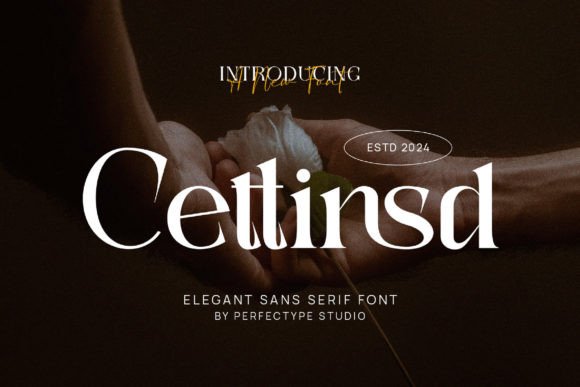
Cettinsd Font: Elevate Your Designs with a Classy and Modern Serif Typeface
In the world of typography, fonts play a crucial role in conveying the tone and personality of a brand or design. With numerous font options available, finding the perfect one that combines style, readability, and versatility can be a daunting task. However, if you’re looking for a font that embodies class, modernity, and sophistication, look no further than Cettinsd Font. This serif typeface is specifically designed to cater to various design needs, making it an excellent choice for projects that require a high level of readability and aesthetic appeal.
What is Cettinsd Font?
Cettinsd Font is a serif typeface that seamlessly blends traditional and modern elements to create a classy and contemporary look. The font’s design is characterized by its elegant lines, refined curves, and precise letter spacing, making it perfect for a wide range of applications. Whether you’re working on branding projects, logos, wedding designs, social media posts, advertisements, product packaging, product designs, labels, photography, watermarks, invitations, stationery, or any other creative project, Cettinsd Font is an excellent choice.
Key Features of Cettinsd Font
- Serif Typeface: Cettinsd Font is a serif font, which means it features small lines or flourishes at the ends of the letters. This design element adds a touch of sophistication and elegance to the font.
- Classy and Modern Style: The font’s design is a perfect blend of traditional and modern elements, making it suitable for a wide range of design projects.
- High Readability: Cettinsd Font is designed with readability in mind, making it easy to read and understand, even at small font sizes.
- Versatility: The font can be used for various design projects, from branding and advertising to packaging and stationery.
Uses of Cettinsd Font
Cettinsd Font is a versatile typeface that can be used for a wide range of design projects, including:
- Branding Projects: Use Cettinsd Font to create a professional and sophisticated brand identity.
- Logos: The font’s elegant design makes it perfect for logos that require a touch of class and modernity.
- Wedding Designs: Cettinsd Font is an excellent choice for wedding designs, such as invitations, stationery, and wedding websites.
- Social Media Posts: Use the font to create visually appealing social media posts that stand out from the crowd.
- Advertisements: Cettinsd Font is perfect for advertisements that require a professional and modern look.
- Product Packaging: The font can be used for product packaging, labels, and product designs.
- Photography: Use Cettinsd Font to create elegant watermarks and photo captions.
- Invitations: The font is perfect for creating formal and informal invitations.
- Stationery: Cettinsd Font can be used for creating professional stationery, such as letterheads and business cards.
Benefits of Using Cettinsd Font
Using Cettinsd Font for your design projects offers several benefits, including:
- Unique and Professional Look: The font’s elegant design gives your designs a unique and professional look.
- Improved Readability: Cettinsd Font is designed to be highly readable, making it easy for your audience to understand your message.
- Versatility: The font can be used for a wide range of design projects, making it a valuable addition to your font library.
- Time-Saving: With Cettinsd Font, you can create professional-looking designs quickly and efficiently.
Tips for Using Cettinsd Font
To get the most out of Cettinsd Font, follow these tips:
- Use it for Headings and Titles: Cettinsd Font is perfect for headings and titles, where you want to make a bold statement.
- Pair it with Other Fonts: Experiment with pairing Cettinsd Font with other fonts to create a unique and visually appealing design.
- Adjust Font Size and Color: Adjust the font size and color to suit your design needs and ensure optimal readability.
- Use it Consistently: Use Cettinsd Font consistently across your designs to create a cohesive brand identity.
In conclusion, Cettinsd Font is a versatile and elegant serif typeface that can elevate your designs to the next level. With its classy and modern style, high readability, and versatility, it’s perfect for a wide range of design projects. Whether you’re a designer, marketer, or business owner, Cettinsd Font is an excellent choice for creating professional-looking designs that stand out from the crowd.